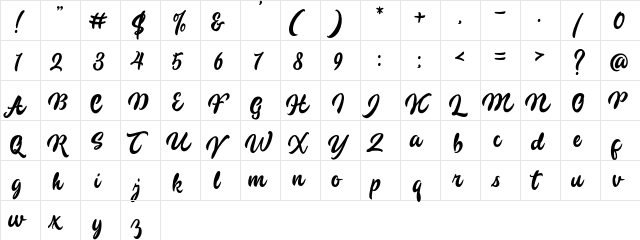
Tristan Script Regular
Design Context for Tristan Script Typeface
Tristan Script brings a calligraphic fluidity to the page — its connecting strokes and expressive curves give it an unmistakably human quality.
Font Pairing: Combine Tristan Script with a simple geometric sans for maximum contrast — the tension between flowing curves and clean structure is a classic typographic pairing.
Pro Tip: Use Tristan Script for short runs of text — names, titles, or taglines. Extended body copy in script faces tires the eye quickly.